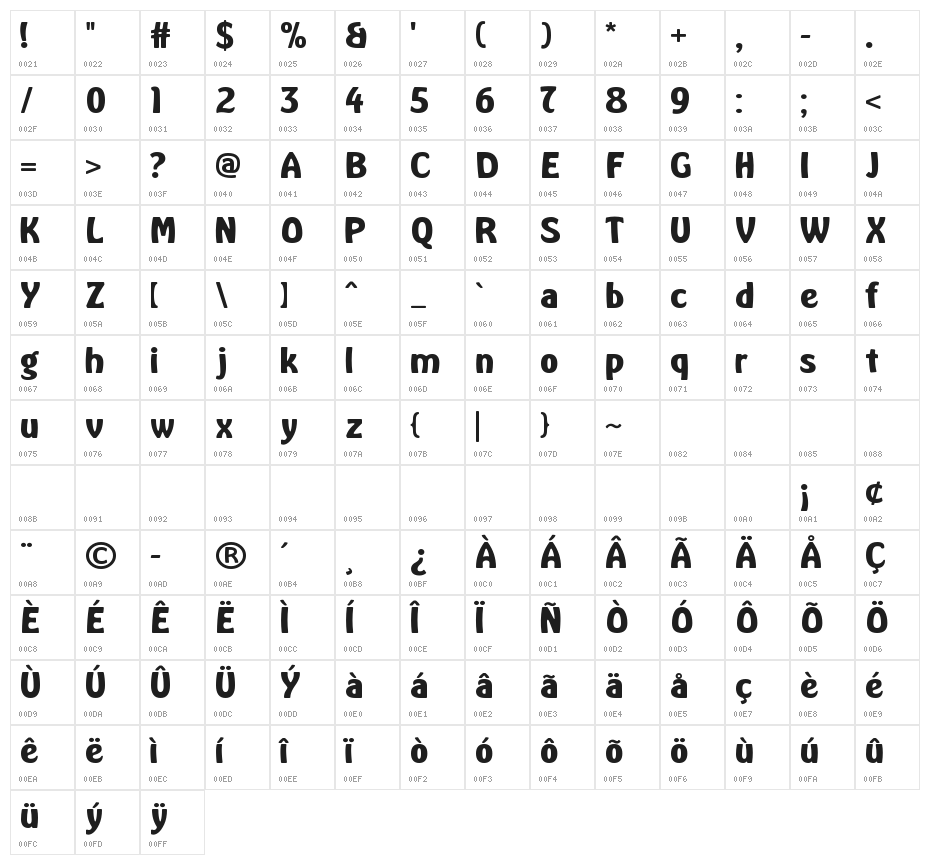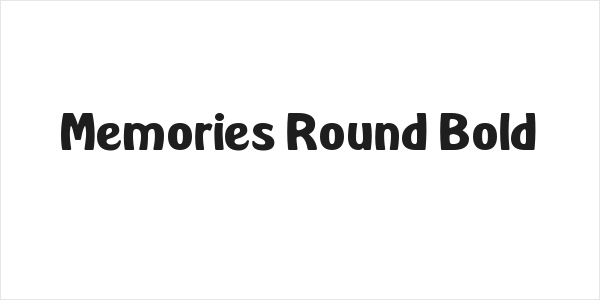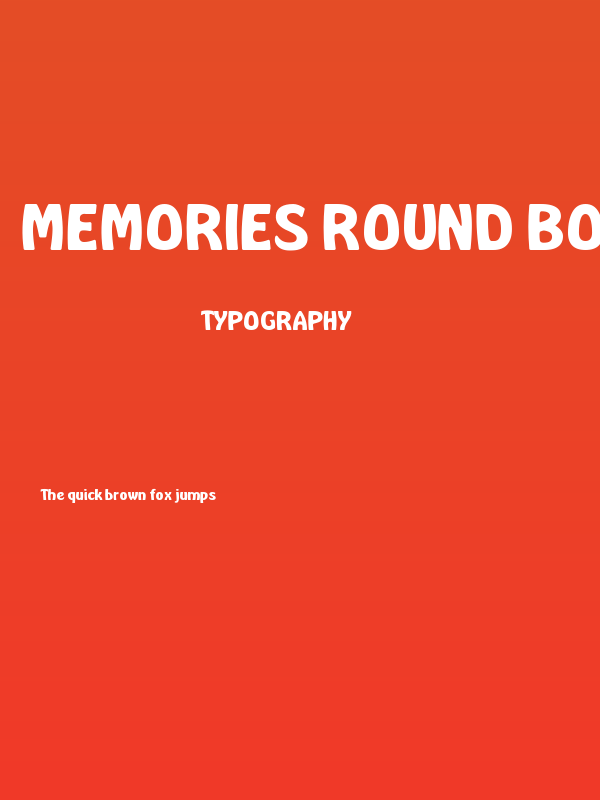
Memories Round Bold Font
Memories Round Bold Description
This font features a playful and rounded style, characterized by its bold and thick strokes. The letters have a friendly and approachable appearance, with smooth curves and a consistent weight throughout. The uppercase and lowercase characters maintain a uniform width, contributing to a cohesive look. The numerals and special characters are designed to match the overall style, ensuring versatility across different uses. Its boldness and rounded edges make it suitable for projects that require a fun and engaging visual impact.
| Proposed Projects | Ideal for children's books, playful branding, casual invitations, and posters. |